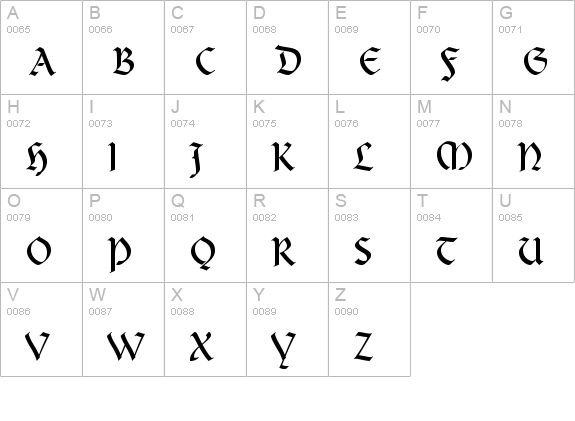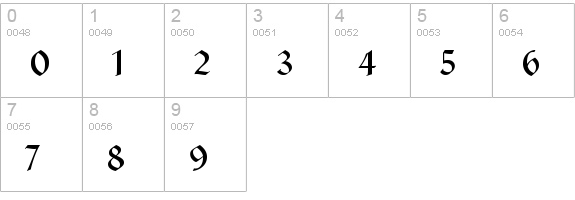
Clairvaux Dfr Font Details
Clairvaux Dfr font is a stunning typeface that exudes elegance and sophistication. Its delicate serifs and graceful curves give it a timeless appeal, making it perfect for a wide range of design projects. Whether you're working on invitations, branding materials, or editorial layouts, Clairvaux Dfr font will add a touch of class to your work. The best part? This exquisite font is available for free download at FontsMarket.com. That's right, you can elevate your designs with Clairvaux Dfr font without spending a dime. Don't miss out on this opportunity to enhance your creative projects with this beautiful and versatile typeface. Download Clairvaux Dfr font today and let your designs shine!